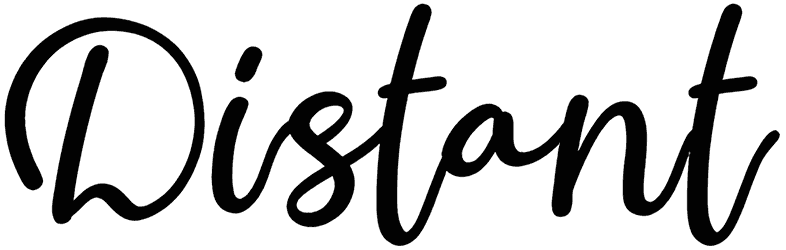
Distant Font
Distant is a unique thank you font that comes with clean shapes and accurate kernings, so it can add a sense of personalization, art, drama, and delicacy to your graphic content. With the help of this typeface, you can take the quality of your artwork including posters, magazines, social media posts, logos, and stationaries to the next level.